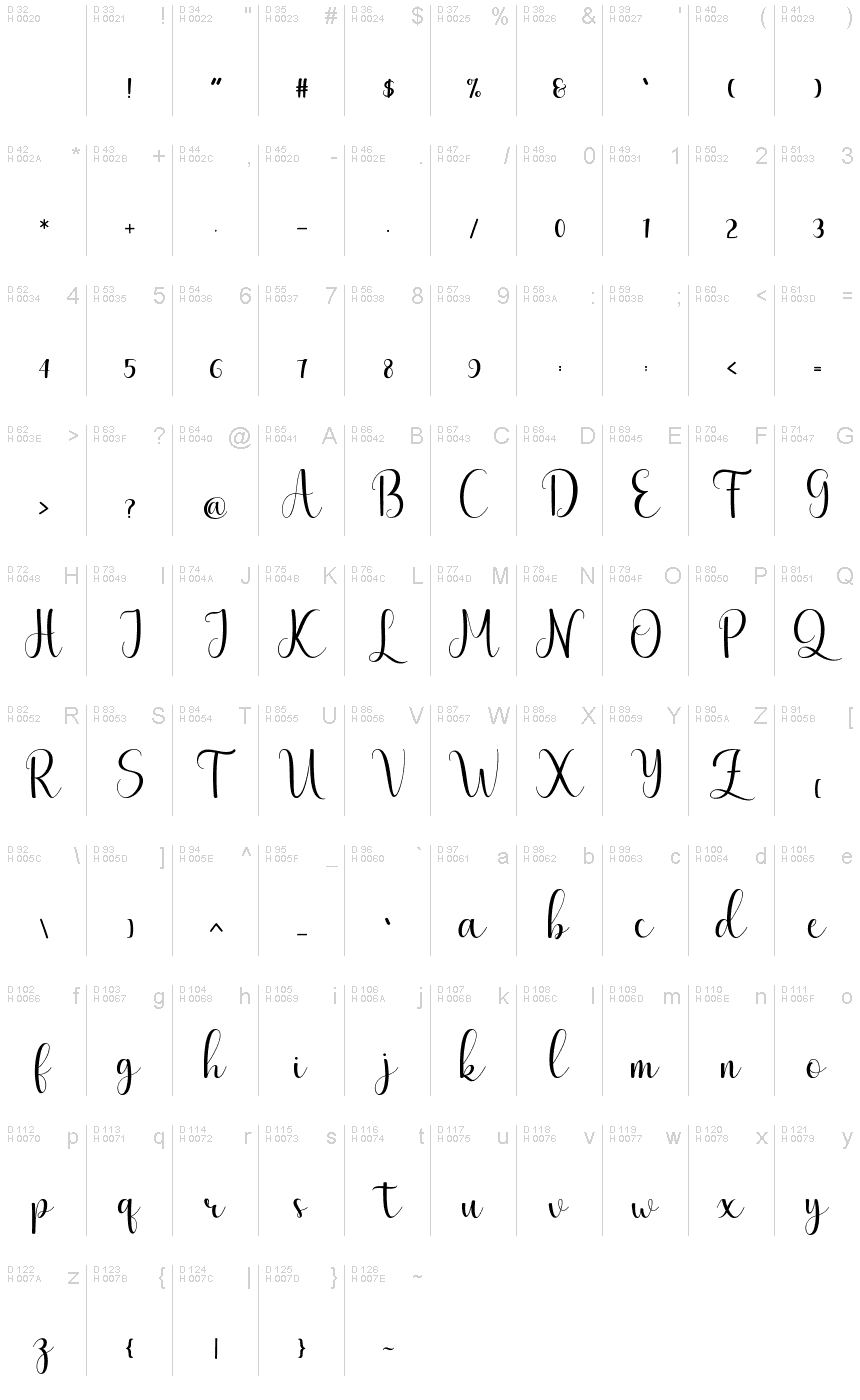
TheLovelyScript
The Lovely Script, a captivating calligraphy font designed by Cut Story, effortlessly adds an elegant touch to any project. With its semi-light weight, this font exudes grace and sophistication, making it perfect for wedding invitations, romantic quotes on social media, or even luxurious branding materials. Whether you're designing a timeless logo for a high-end fashion label or creating personalized stationery for a special occasion, The Lovely Script will infuse your work with an air of refined beauty. Elevate your designs and leave a lasting impression with this enchanting calligraphy typeface.